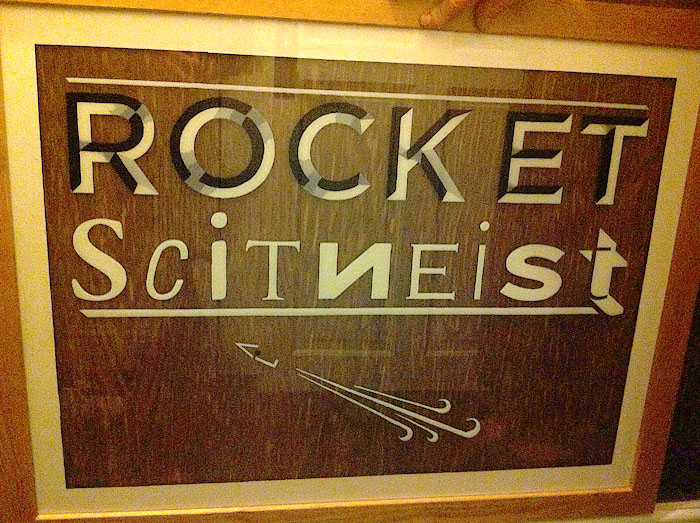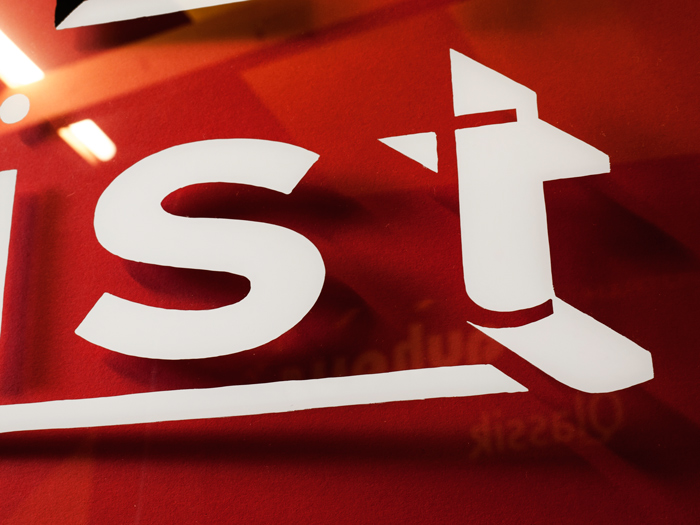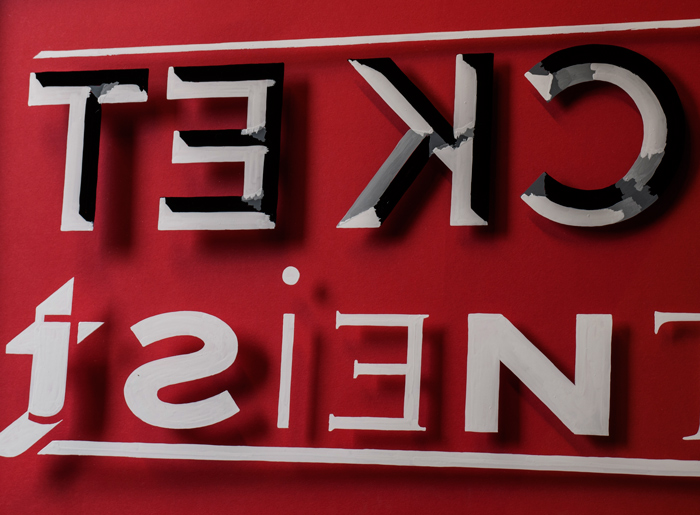
This is a conceptual sign that I've created for university this semester.
It has some hidden messages, and not so hidden messages.
This looks like a fun project, cleanly executed. Can you tell us a little more about the piece, what you're trying to accomplish, etc?
The photo is kind of dark, but it looks to me like it's something produced on glass - front or back I can't tell. Have you used gold leaf on the project or is it something else?
It looks have 3 shades of color plus black in the prismatic "Rocket" to create the bevel effect. That is very nicely done. The word "scitneist" is a bit too subliminal for me to figure out and of course, along with the intentional misspelling you have a reversed "N" and a mix of 9 upper & lower case letters in the word. I'm sure that has significance but I'm not sure what it is.
I'll attach a version of your photo, with the shading levels lightened in Photoshop which helps us view it a little differently. (Hope you don't mind.)
You're right, it is painted on glass. I did it in reverse to leave the lettering crisp and smooth.
Here are some more pictures, I wanted to see if anyone could get all of my intentions with the piece. From the simple ones, to the far more subtle and cryptic. I can put a link to my blog explaining all if anyone want's to know more.
One tutor managed to get all but a couple of the typefaces used. Everyone I've asked bar one person can read my mixed up word. Not including Dan, unless he did get it.
ROCK ET Scientist.... Are you inferring to Topographic mapping of celestial bodies? I don't think your talking Major Tom Rocket Man stuff.
Haha no, you are well off there! It's from the Latin term, 'Et Al.' Meaning and others. Meaning and other people, but due to aspects of typography being named after parts the body, I thought it was an acceptable use.